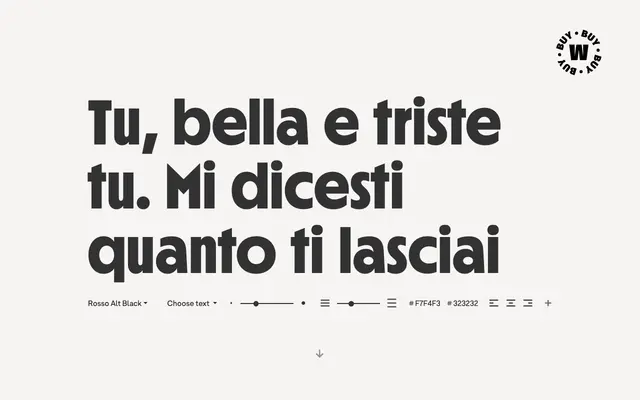
Rosso
A condensed geometric sans in two subfamilies, drawing on the Roslyn Gothic structure used for Philip K. Dick paperback covers and the decorative rhythms of Art Deco.
Rosso takes Roslyn Gothic as its structural reference, the condensed geometric letterform associated with 1970s science-fiction paperback covers, and extends it into a 10-weight family with matching italics. The Alt subfamily widens the round counters to produce a tighter, more contrasted rhythm typical of Art Deco display work. Alternative glyphs and discretionary ligatures, informed by Herb Lubalin's approach, broaden its range for logo-building, posters and cinematic titling. Both subfamilies are available as variable fonts.
A condensed geometric sans with Art Deco proportions drawn from Roslyn Gothic, the type used on Philip K. Dick book covers; the Alt subfamily's expanded round forms push it further into display territory.